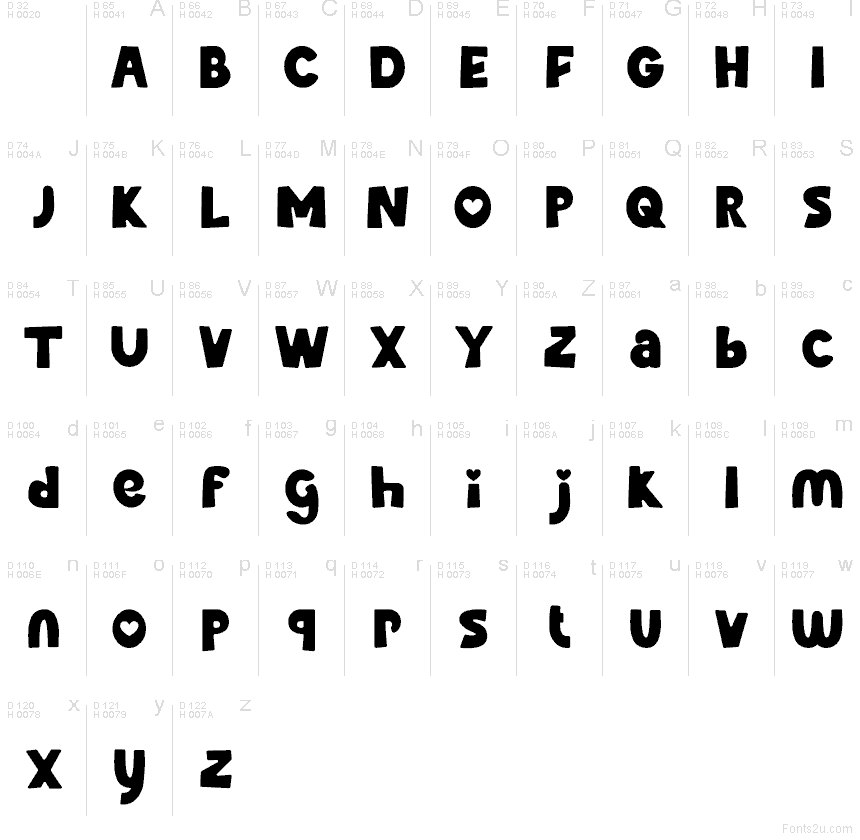
Love Live
Love Live Font is a playful display font full of warmth and joy. Perfect for Valentine designs, teacher projects, logos, posters, mugs, apparel, and holiday gifts, this fancy font combines a thick bold style with cozy, decorative charm. Ideal for mothers day fonts, love font, or any fun, cheerful project that needs personality and affection.